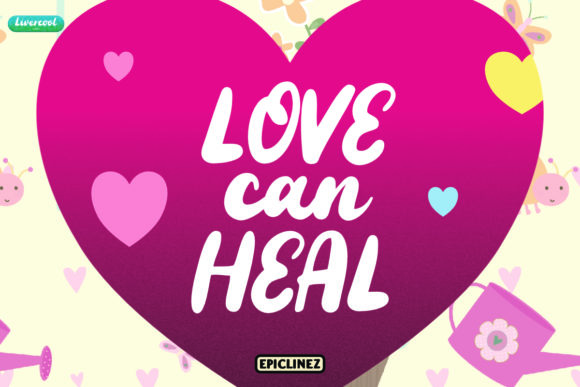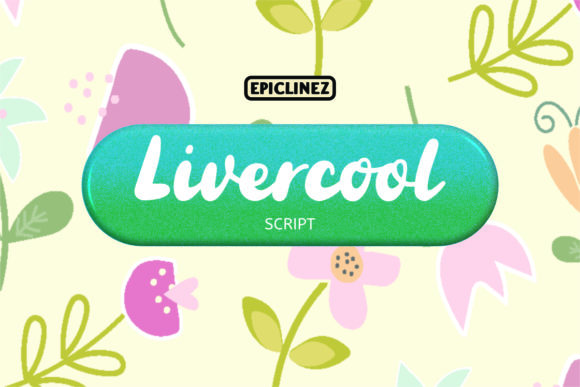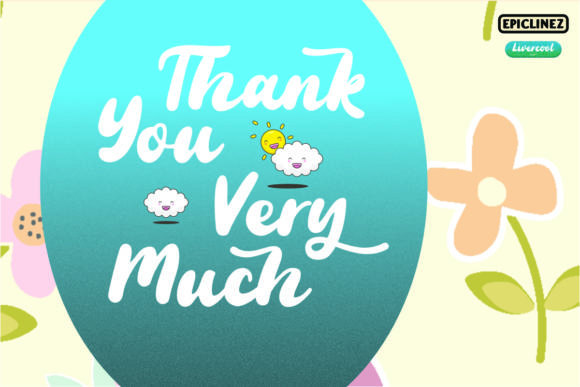
About Livercool Font
Livercool is playful and cute, but also authentic. This versatile script font has a wide range of applications ranging from DIY projects to body text and is guaranteed to add a romantic touch to your next design.
This font is PUA encoded which means you can access all of the dazzling glyphs and swashes with ease! It also features a wealth of special features including alternate glyphs and ligatures.